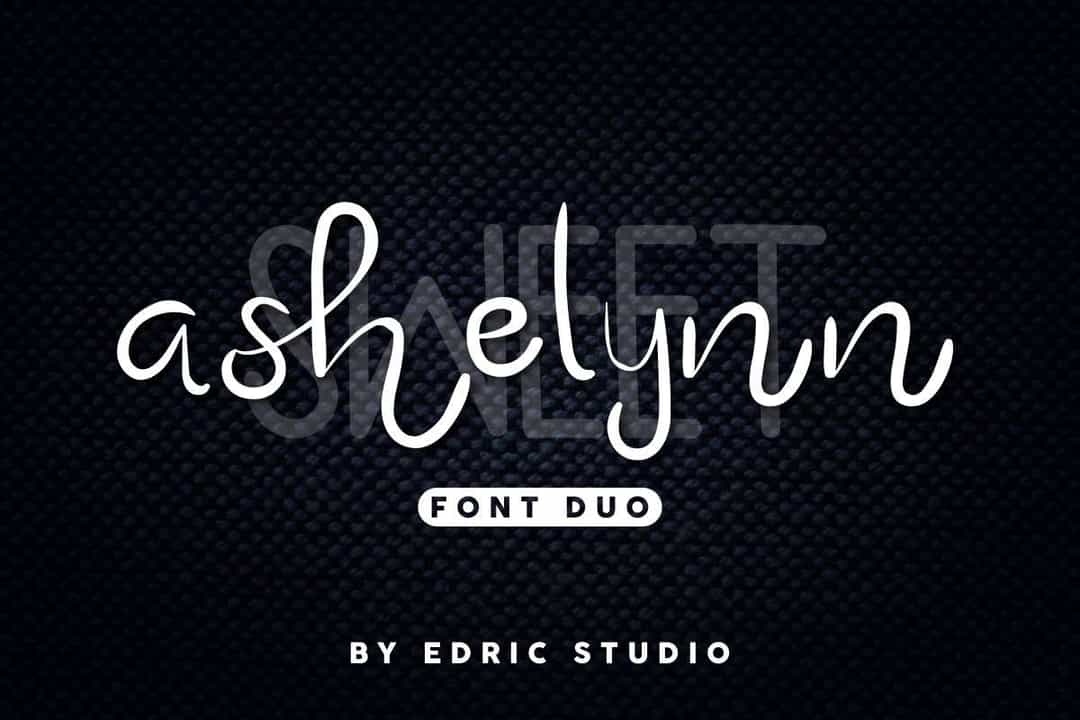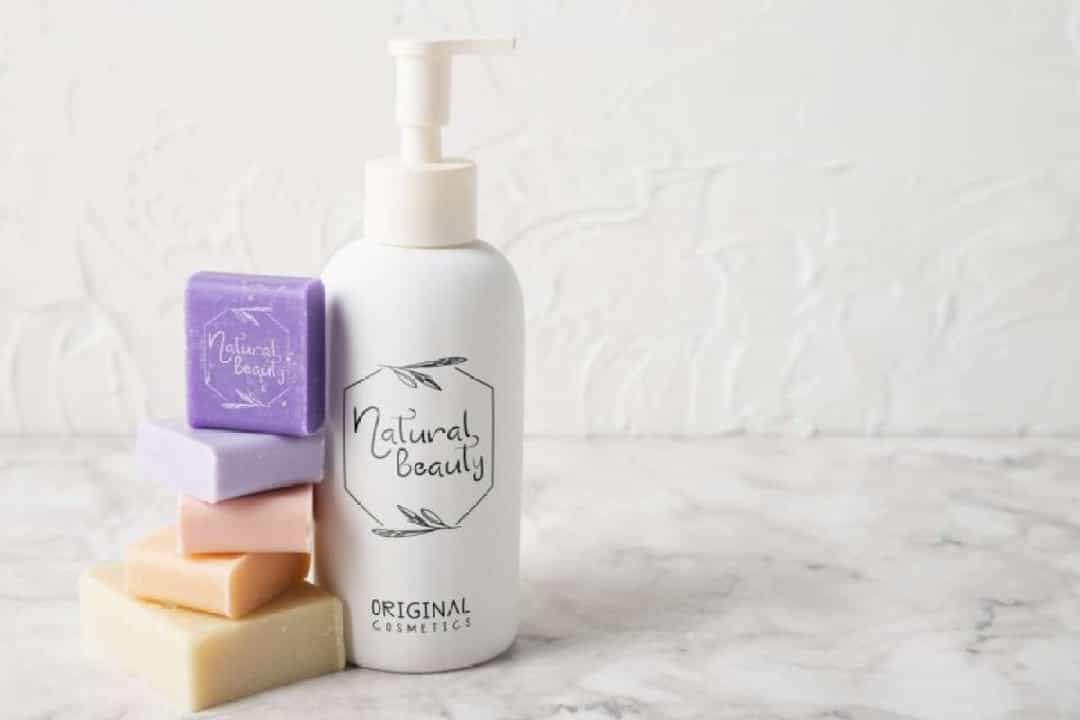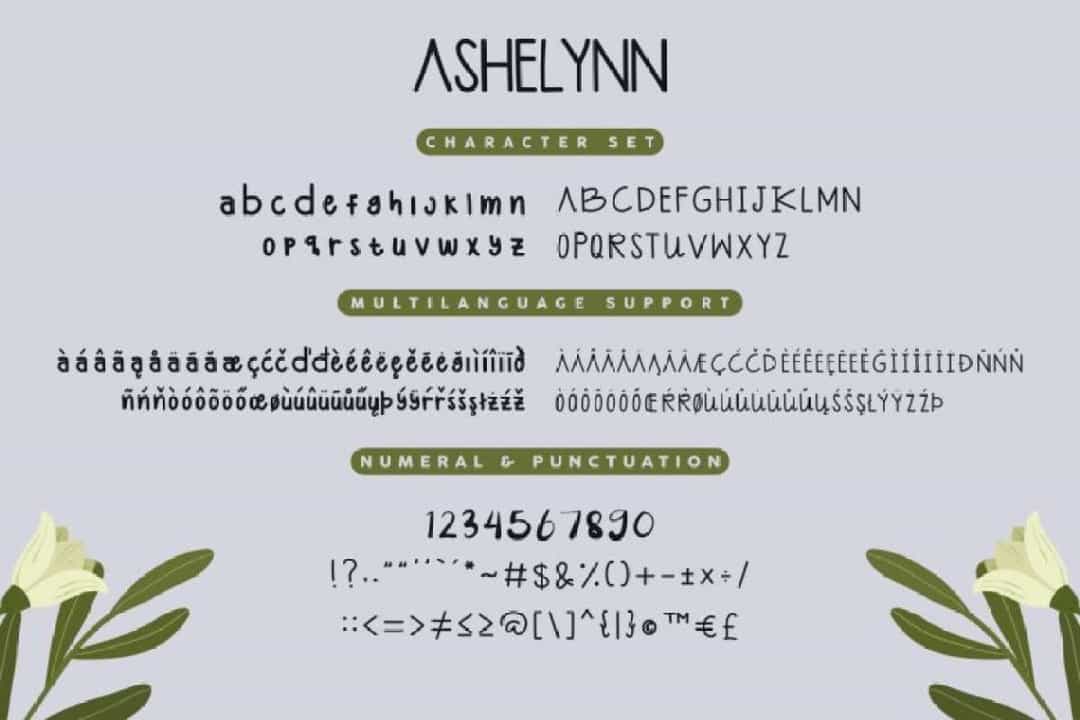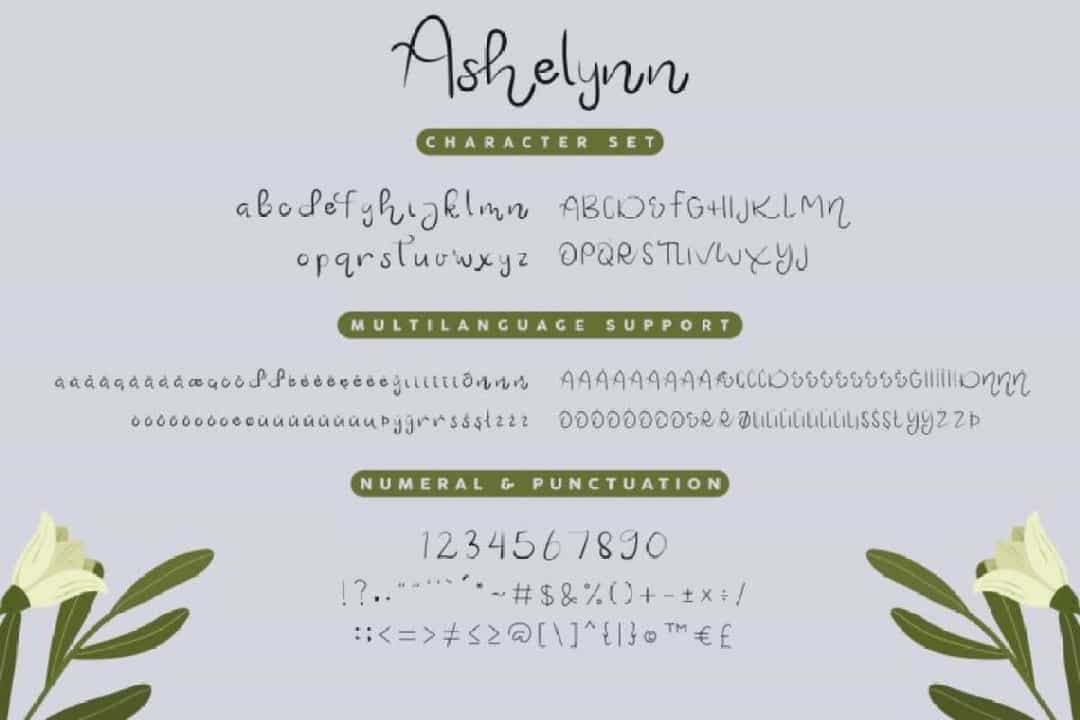
Ashelynn sweet Font Duo is a contemporary decorative font duo with sans serif and handwriting typeface style. The font will be perfect for branding, logo (with extended license), stationery, business card, signage, flyer, brochure etc.